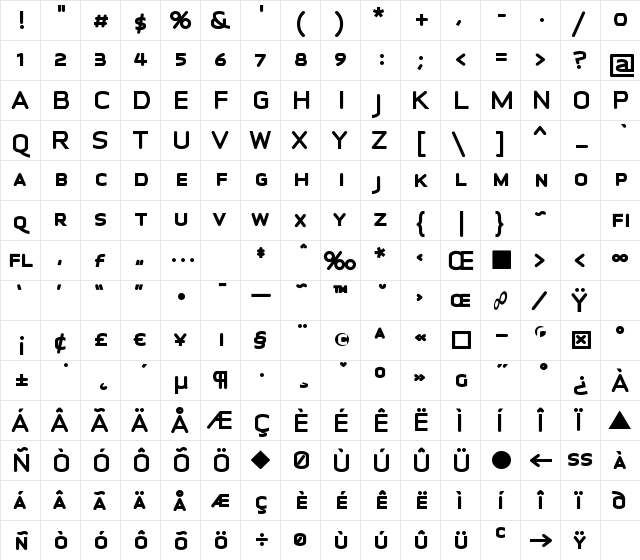
Infinity-C-XB Regular
Design Context for Infinity-C-XB Typeface
Infinity-C-XB offers clean, dependable letterforms without strong stylistic allegiance, making it a practical choice for designers who need flexibility.